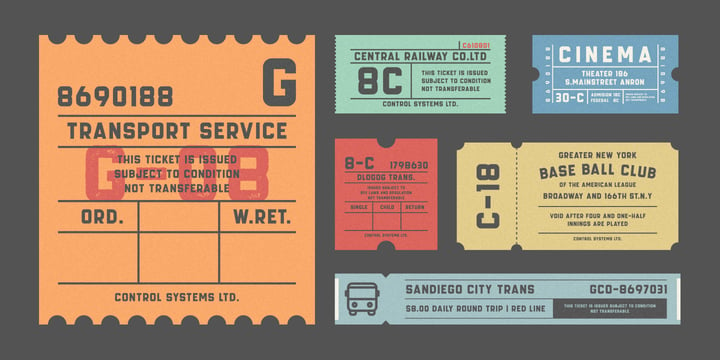
GROCHES Font Family
GROCHES Font FamilyGroches is a contemporary typeface. The typeface can span from a refined vintage feel to an industrial futuristic vibe. Forged from geometric and technical styles with wide characters, make this font type so strong and bold. Comes in two different styles, clean and rusty it brings a vintage touch to any creative project and elevates contemporary editorial layouts. Groches very suitable to use for headlines, sign, display, and logotype, or take it for a spin with short-form body copy.